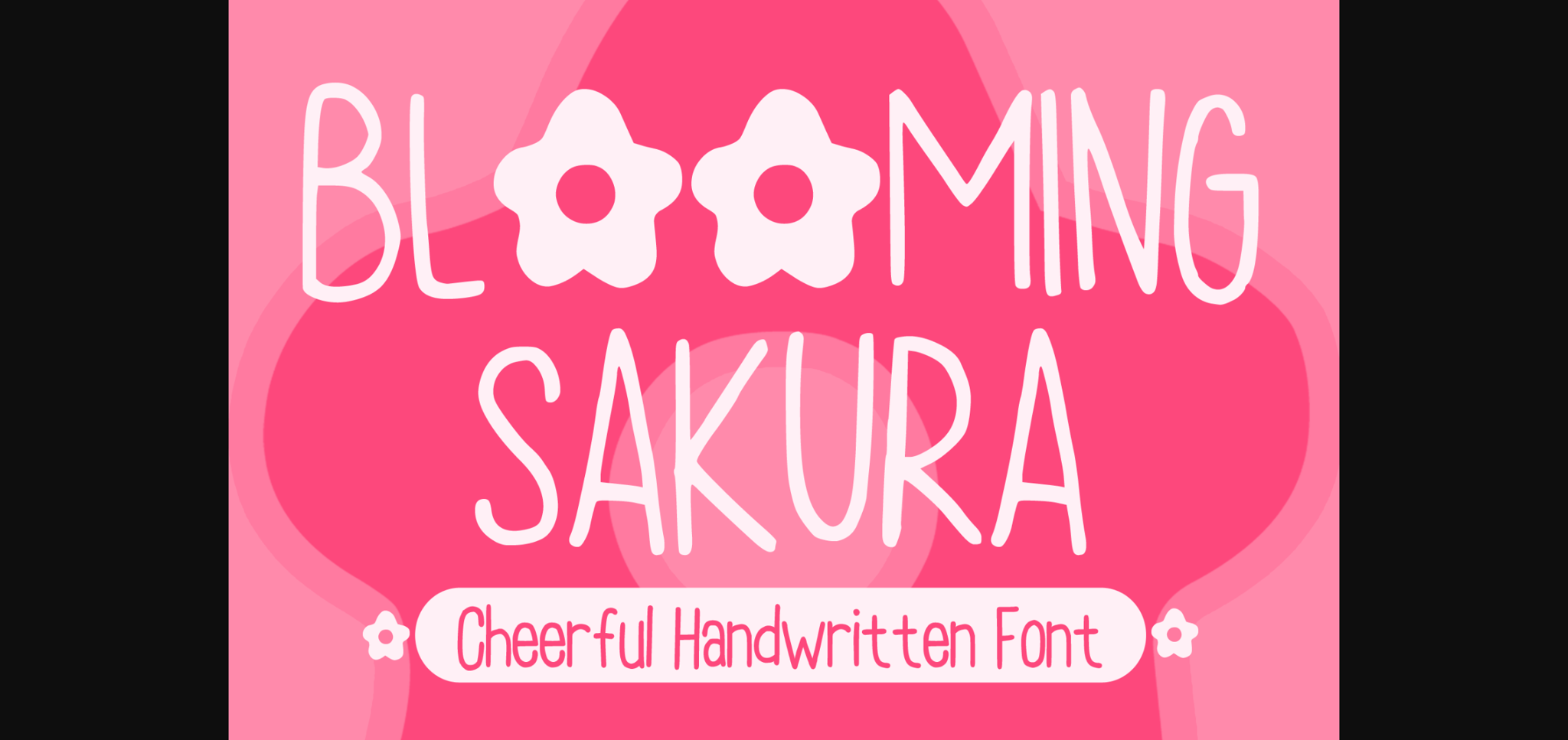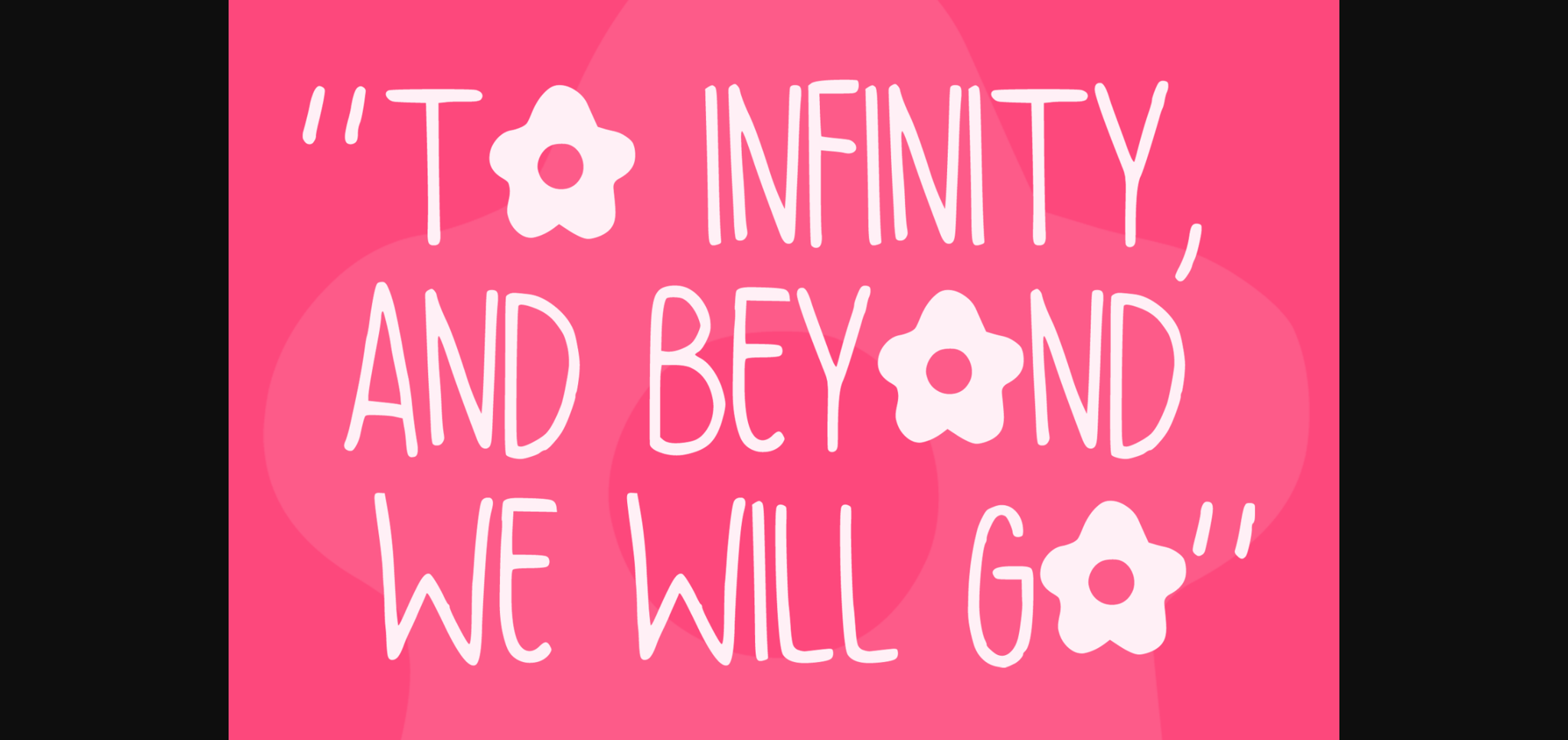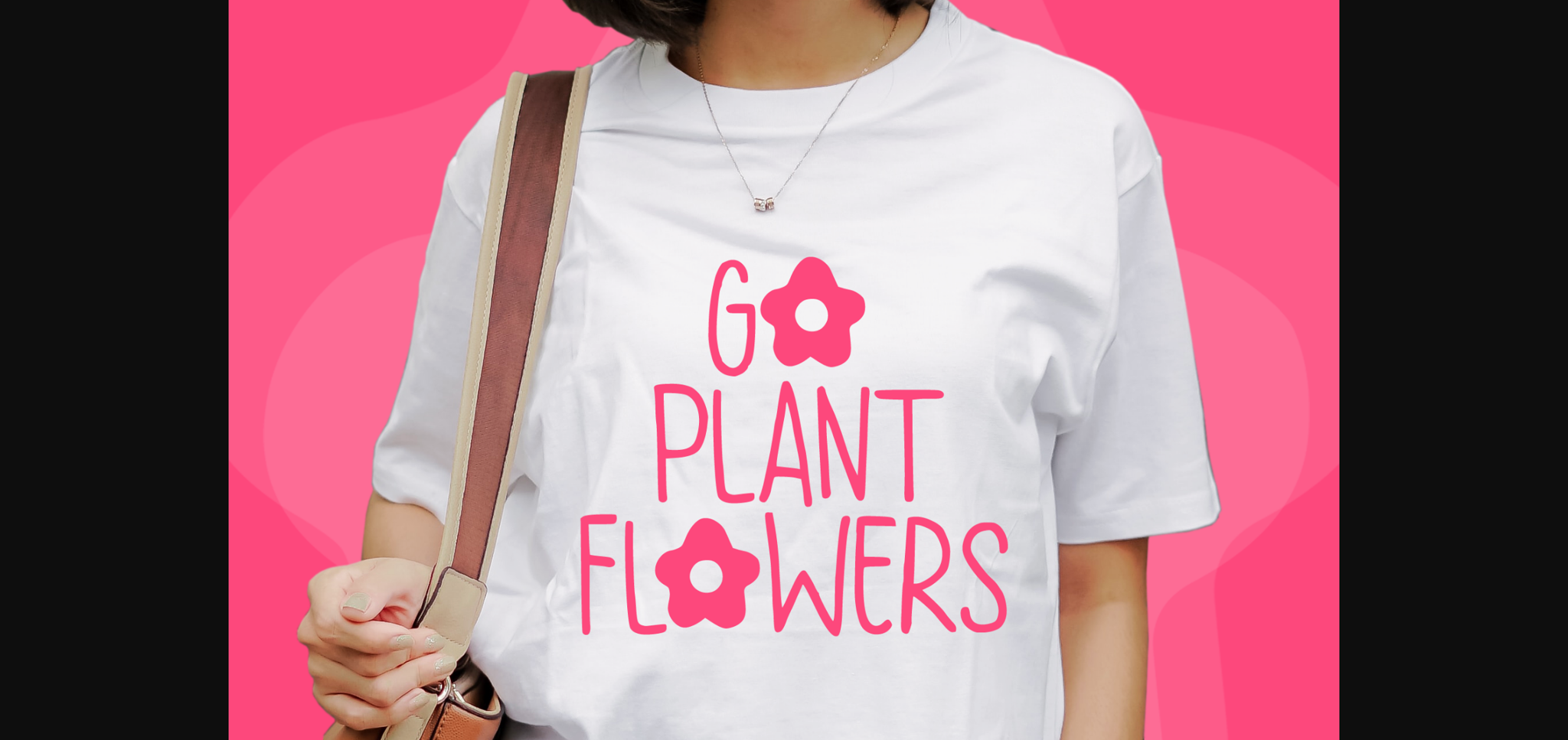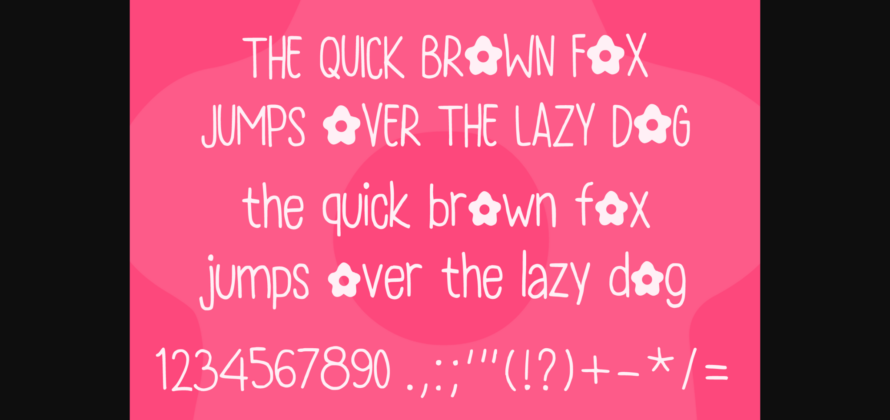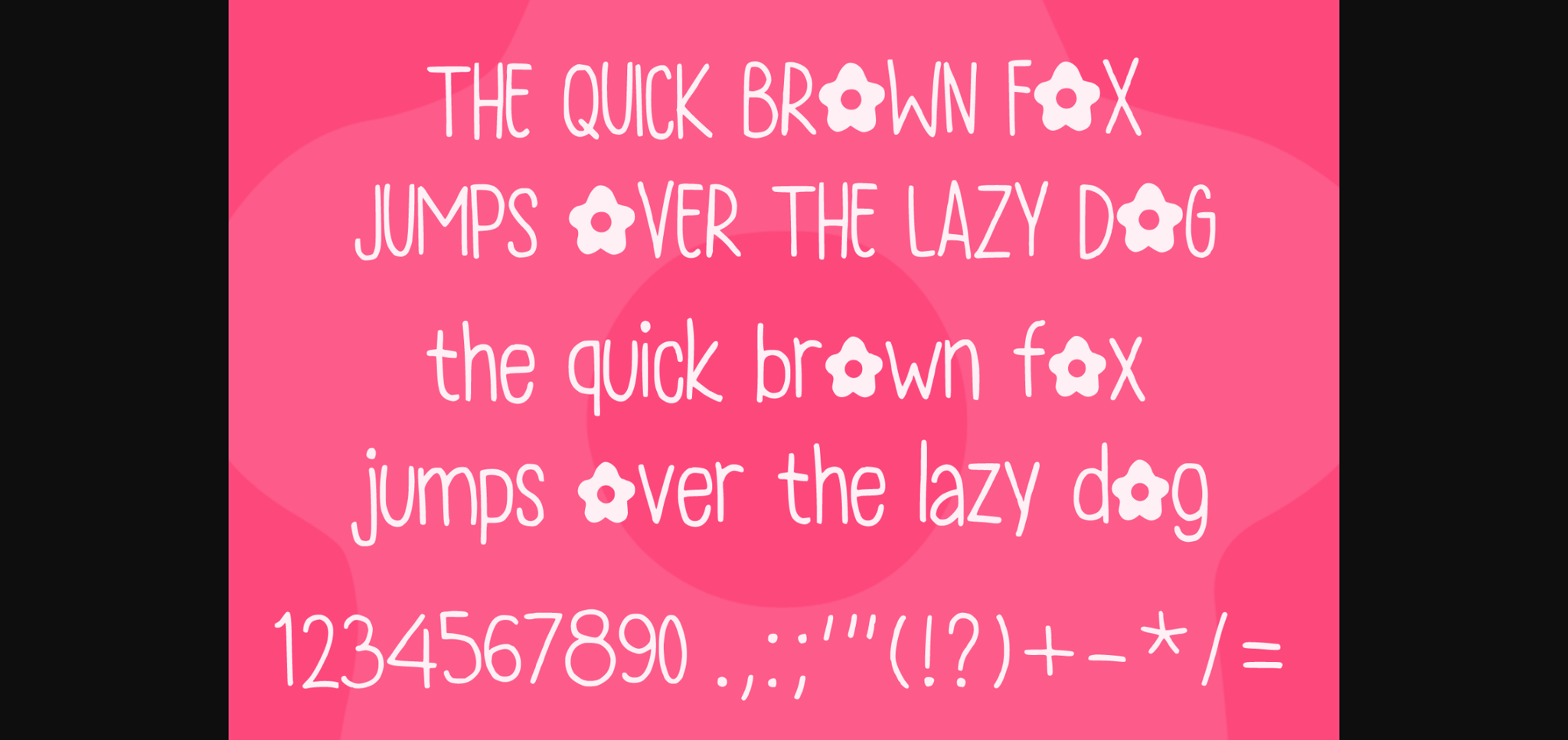
About Blooming Sakura Font
Blooming Sakura is a fun font with flower decorative twist. You can use it for anything ranging from regular typing notes, to t-shirts, kids’ book designs, greeting cards, stickers, posters, or anything that needs a casual touch. Fall in love with its incredible style and use it to create lovely designs!